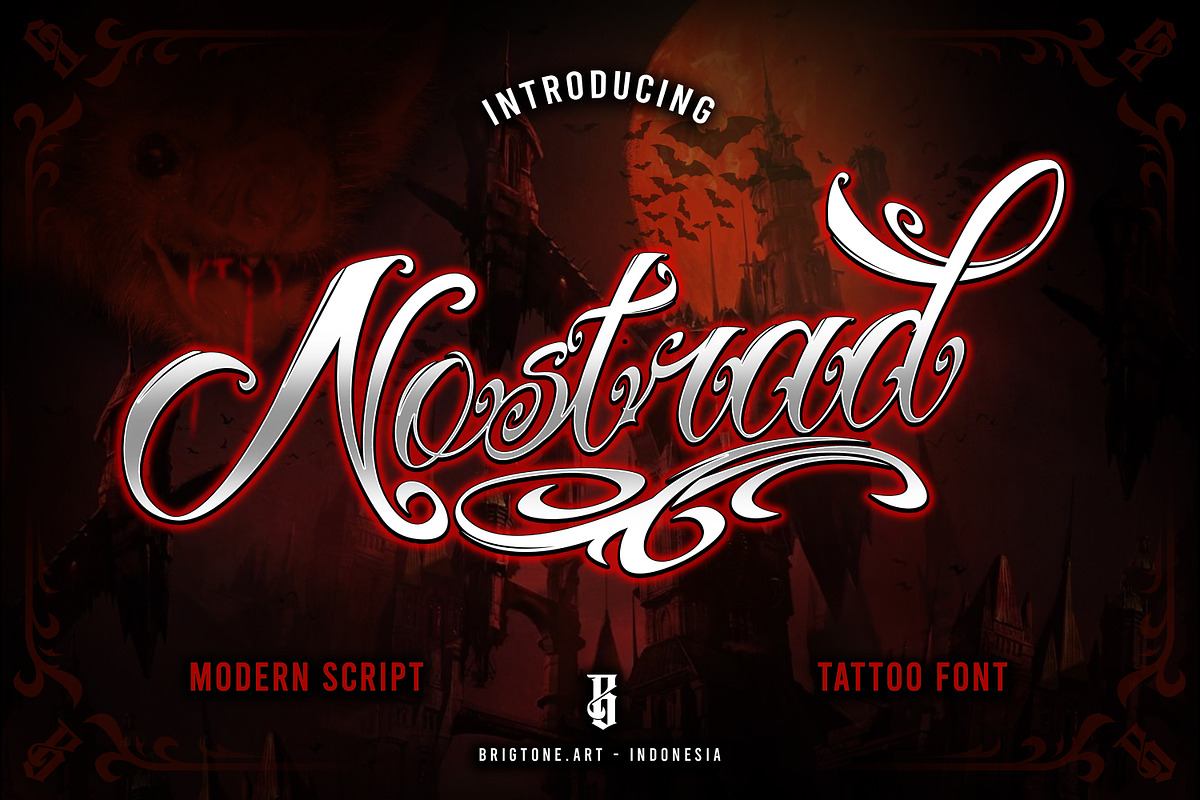
Nostrad - Tattoo Handwritten Font Free Download
Please note, to use this font for commercial purposes, you must purchase the full version. Nostrad is a bold and edgy handwritten font designed to evoke the spirit of tattoo artistry. With its sharp, dynamic letterforms, this font is perfect for creating logos, posters, branding, and designs that require a rebellious, artistic touch. Whether you're designing for a tattoo studio, an urban brand, or a creative project, Nostrad adds an authentic, gritty vibe to your work. Test it out and enjoy free download access for personal use. Experience the powerful, tattoo-inspired style of Nostrad - Tattoo Handwritten Font Free Download before purchasing the commercial license. Add an edgy, hand-crafted flair to your designs with Nostrad.